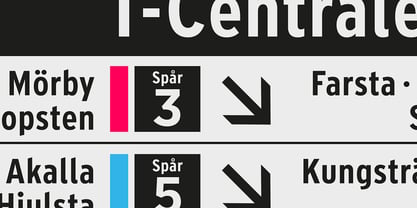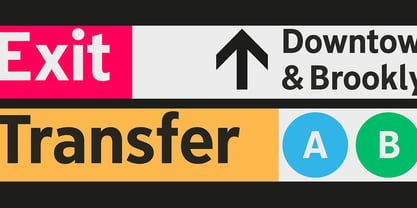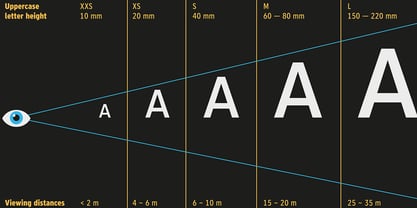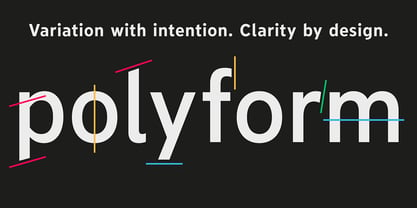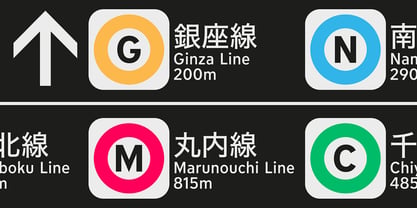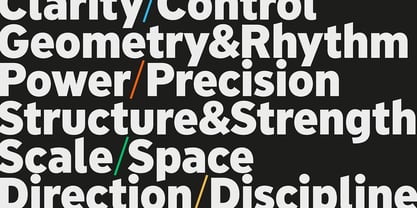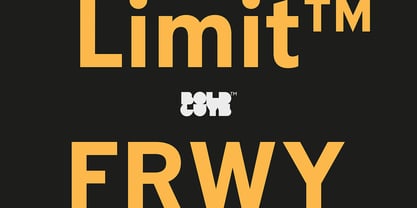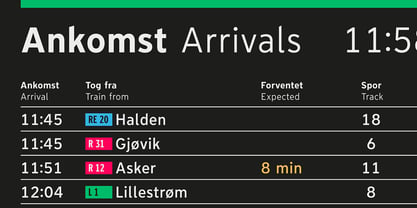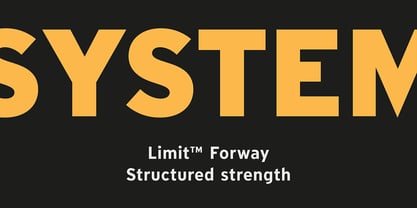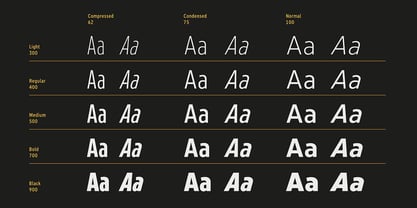
Limit FRWY
Limit™ Forway channels structured strength into defined, purposeful styles. Precisely engineered widths and decisive weights form a controlled system of presence — from compressed efficiency to expansive authority. Each cut is calibrated for clarity in complex environments, delivering spatial impact and disciplined precision wherever communication must command space.